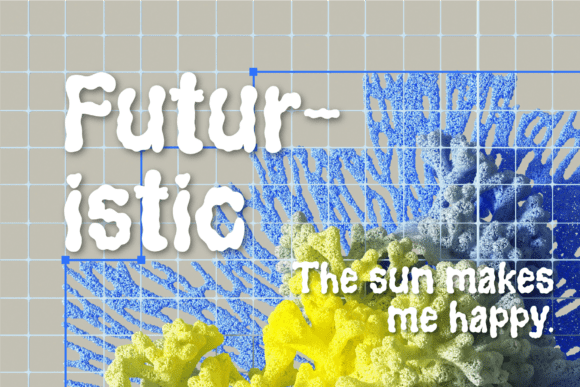
Plumpy Bold Font
**Plumpy Bold** – A Fluid and Bold Liquid Display Font Dive into creativity with Plumpy Bold, a striking display font inspired by the freeform beauty of liquid movement. With its blobby shapes, wavy lines, and organic flow, Plumpy Bold delivers a bold yet playful presence that’s impossible to ignore.Designed to grab attention, this font is perfect for branding, poster headlines, festival graphics, experimental design, album covers, creative merchandise, or any project that craves a dynamic and fluid vibe.Its unique texture mimics flowing ink or melting forms, creating a surreal and modern statement in every word.**Why Choose Plumpy Bold?** – 🌊 Liquid-Inspired Design: Organic, wavy letterforms that feel alive and dynamic.– 🎨 Perfect for Bold Concepts: Ideal for standout branding, posters, or music visuals.– 🔥 Experimental and Modern: Great for projects seeking edgy and artistic impact.– 📚 Strong Legibility: Even with its wild forms, it maintains easy readability.– 🌍 Multilingual Support: Includes numbers, punctuation, and wide language coverage.Let your creativity melt boundaries—Download Plumpy Bold now and flow beyond the ordinary! 🎨🌊